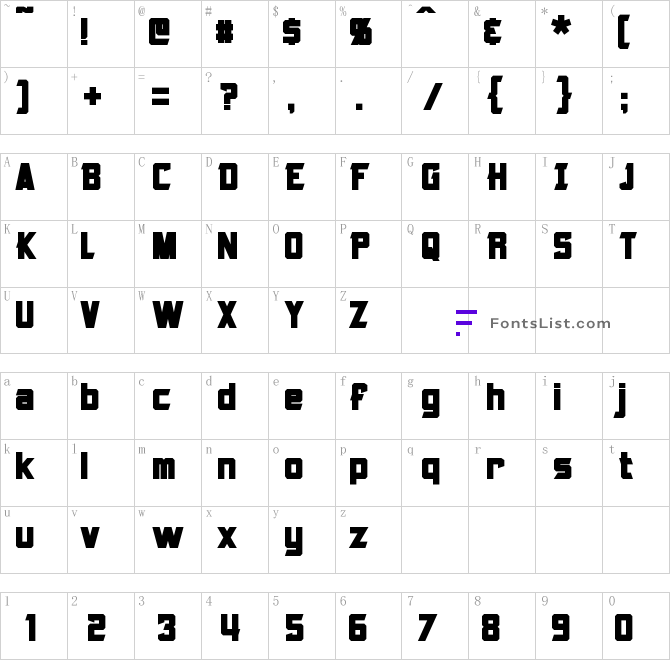
- Font Name:Armorhide
Armorhide-Bold.otf is a very beautiful artistic font, Armorhide-Bold.otf is widely used in the design and printing of various books and pictures,Armorhide-Bold.otf has a strong visual impact,Armorhide-Bold.otf is a commonly used font in newspapers, magazines and books, and is used in posters, e-commerce Poster design, store design, logo design, font design and other fields.Armorhide-Bold.